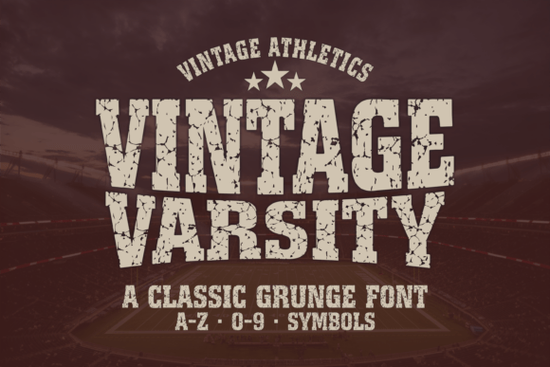
If you’ve ever tried to capture that authentic, worn-in look of old-school college gear or sports memorabilia in your designs, you know how hard it is to find a font that feels both bold and genuinely vintage. That’s where Vintage Varsity Font comes in a distressed athletic typeface built for creators who want that rugged, high-energy aesthetic without sacrificing readability.
Designed with a grunge texture layered over strong varsity letterforms, this font nails the balance between nostalgia and modern usability. Whether you’re making team jerseys, motivational gym posters, or sublimation mugs for a local baseball league, Vintage Varsity adds instant character while keeping your message clear.
What makes this font work so well for sports and collegiate projects?
Unlike overly stylized display fonts that can become illegible at smaller sizes, Vintage Varsity maintains strong, open shapes even with its weathered edges. The distressed effect is subtle enough to avoid visual clutter but pronounced enough to evoke that “been-there, played-that” vibe. It’s especially effective when used for:
- Team names on t-shirts and hoodies
- Banners and locker room wall art
- Social media graphics for fitness coaches or school events
- DIY vinyl decals for water bottles or gym equipment
And because it includes both uppercase and lowercase letters, numbers, and multilingual support, you’re not limited to shouting everything in all caps. You can mix case styles for more natural-looking headlines or captions.
How does it fit into my creative workflow?
This flexibility makes it a solid choice whether you’re running a small print-on-demand shop or crafting weekend projects for your kids’ little league team.
How does it compare to other display fonts?
When should you avoid using this font?
While versatile, Vintage Varsity isn’t ideal for minimalist, corporate, or highly formal contexts. Its textured edges and athletic roots mean it shines best in environments where energy, tradition, or rebellion are part of the message. Avoid using it for body text or fine print stick to headlines, logos, and short phrases where impact matters most.
Quick checklist before you start designing
- ✅ Confirm your project aligns with a bold, sporty, or vintage collegiate theme
- ✅ Test readability at your intended size (especially for apparel or signage)
- ✅ Pair it with clean sans-serif fonts for contrast if you’re combining typefaces
- ✅ Use layer effects in Photoshop or Illustrator to enhance the distressed look if needed
- ✅ Remember: it includes full character sets, so you can use punctuation and numbers confidently
If you’re ready to add authentic athletic flair to your next project without spending hours hunting for the right texture or outline Vintage Varsity Font gives you a reliable, ready-to-use foundation that works across print, digital, and craft applications.